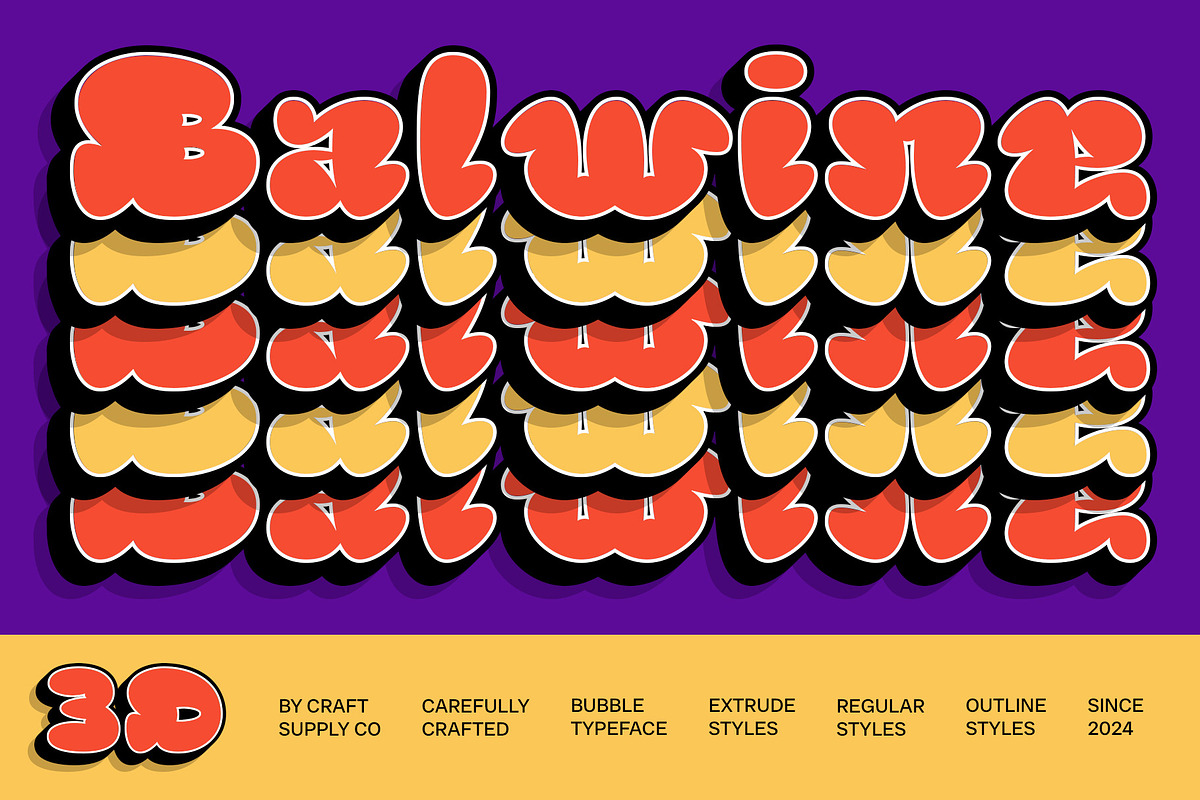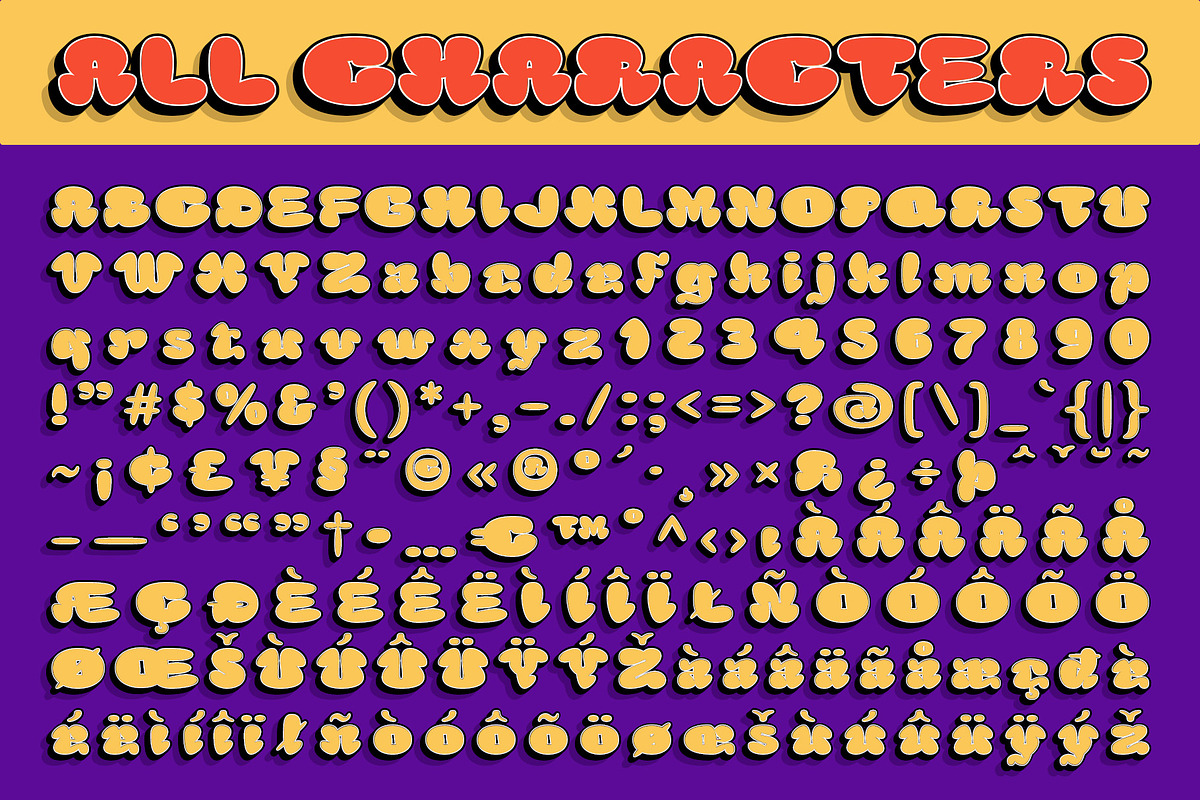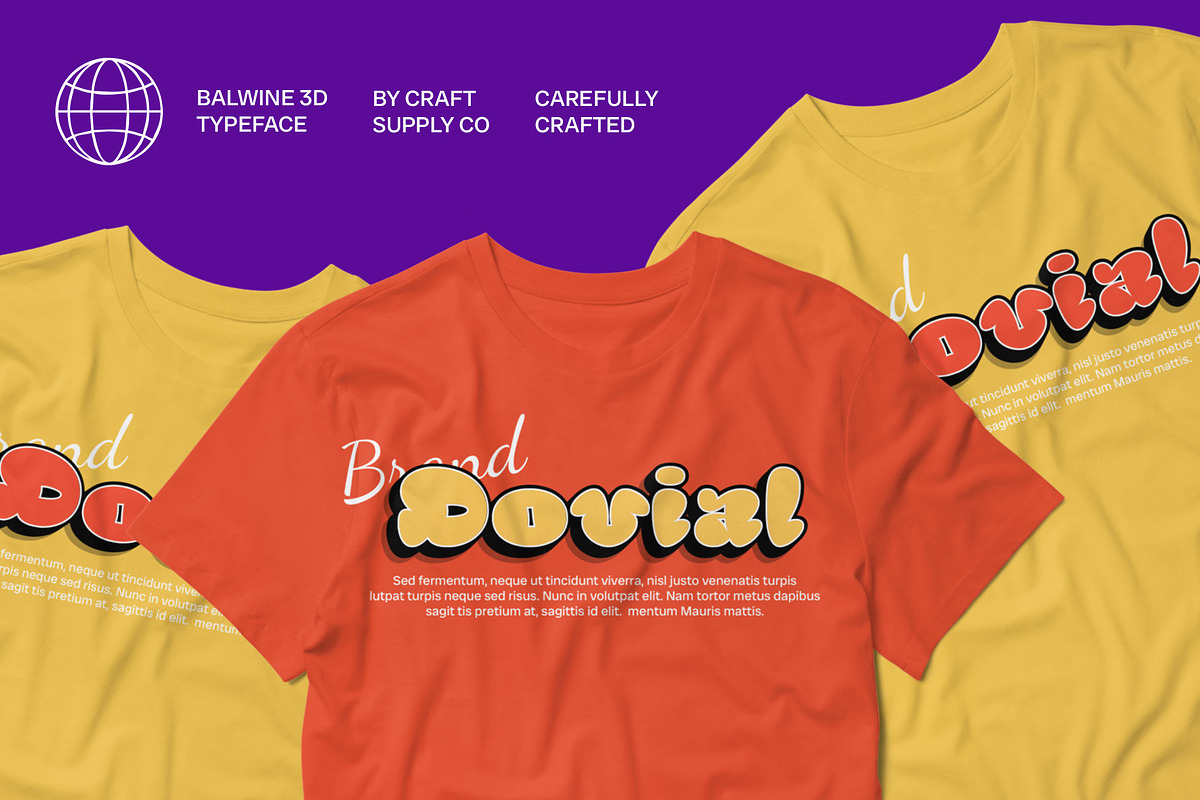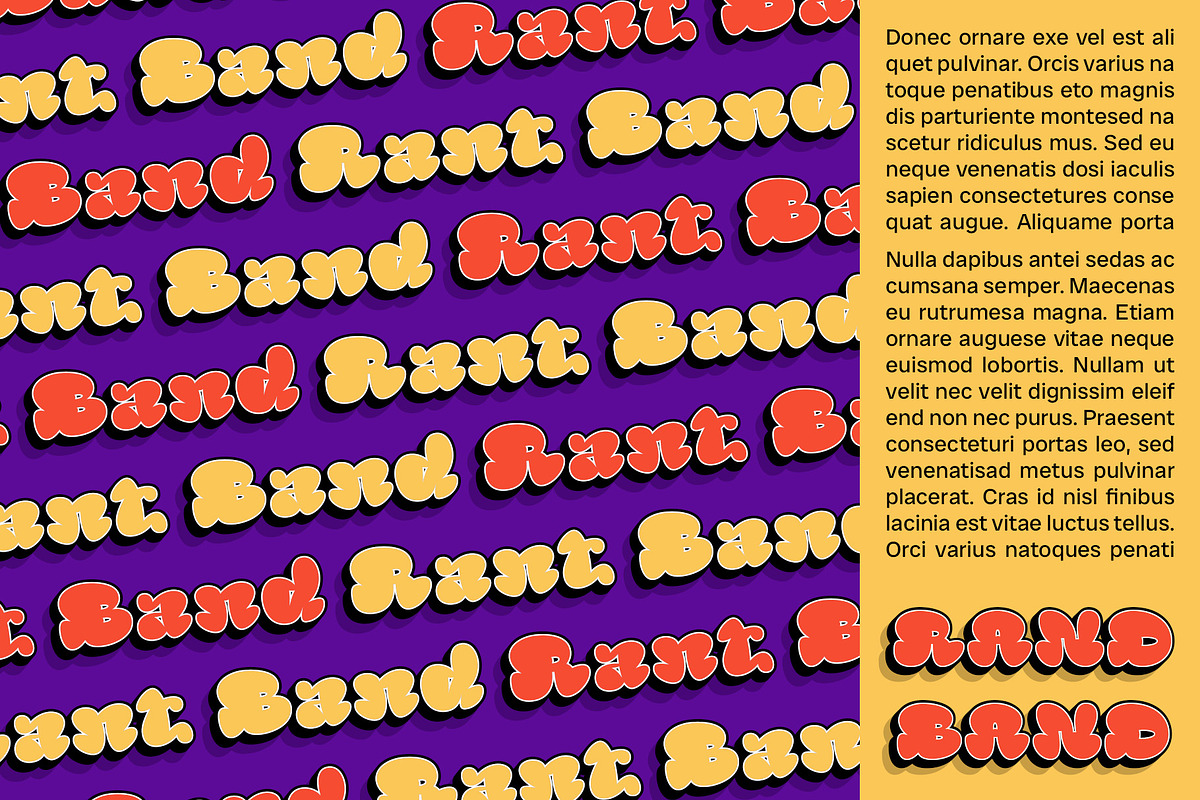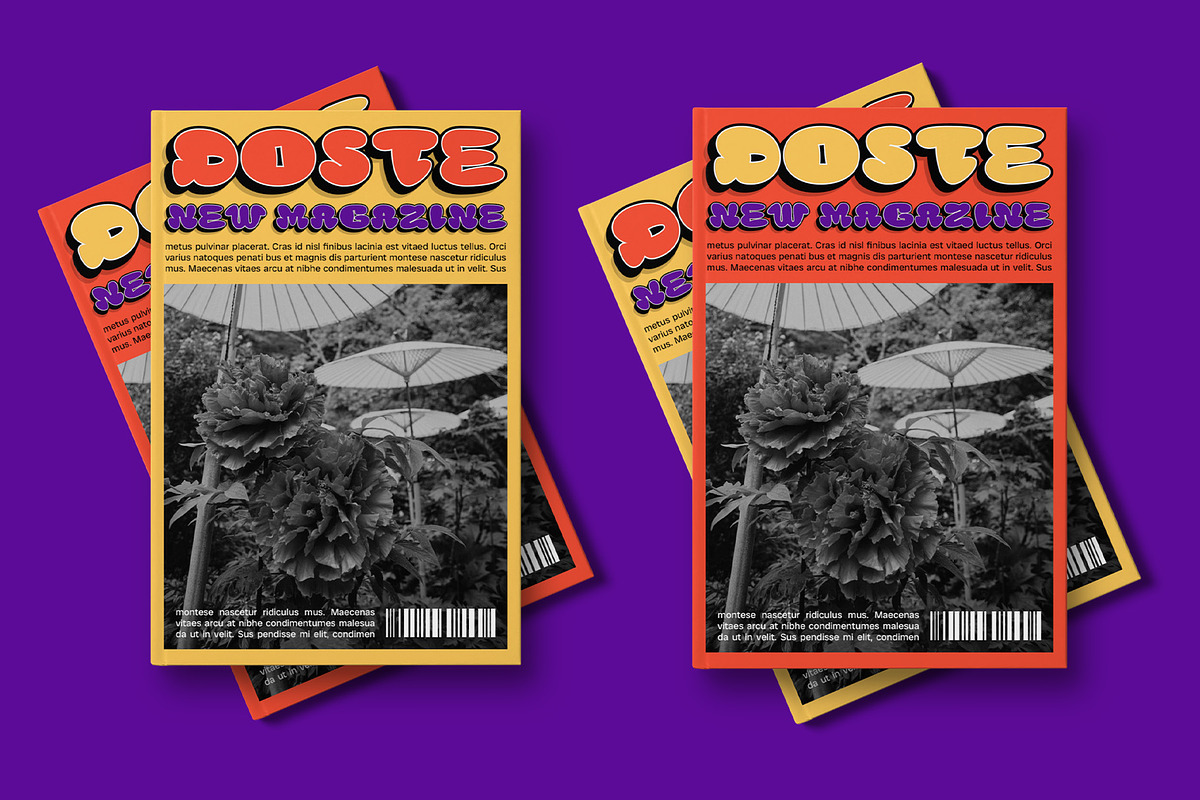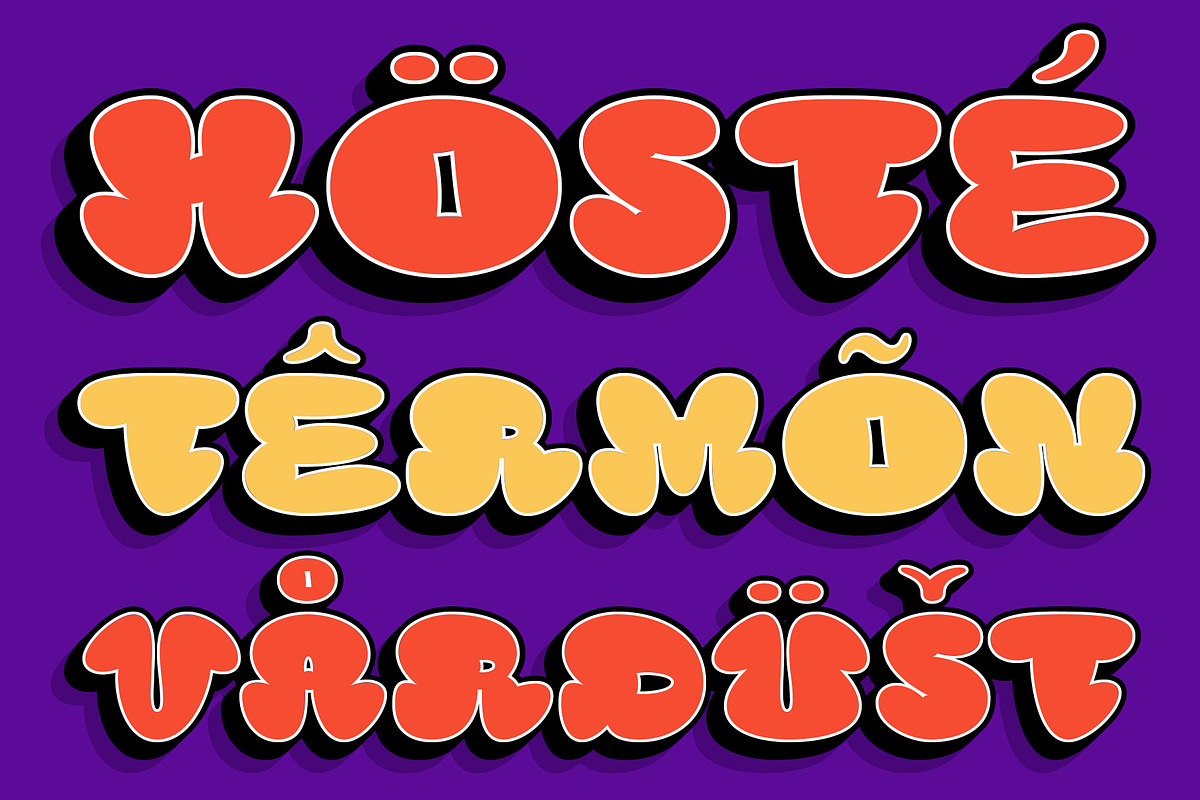
Balwine 3D
Balwine 3D – Playful Bubble Display Font: Fun, Energetic, and Full of Character
3D Bubble Display Font with a Lively Look Balwine 3D is a vibrant bubble display font crafted to infuse your designs with a fun and energetic vibe. Featuring round, soft bubble shapes, this font exudes a cute and playful appearance. The 3D effect adds depth and dimension, making the font appear dynamic and full of character, ideal for capturing attention and conveying a cheerful mood.
Round Shapes and Soft Edges The round, soft bubble shapes of Balwine 3D give it a distinctive, friendly look that’s perfect for playful and creative projects. The bubbly design enhances the font’s charm, while the 3D effect brings a sense of liveliness and visual interest. This combination creates a funky and engaging style, making the font stand out in a variety of applications.
Funky and Cheerful Style Balwine 3D’s funky and cheerful style makes it ideal for projects that aim to highlight a playful and imaginative atmosphere. Whether used in poster designs, promotional materials, or graphic elements, the font’s eye-catching appearance adds a charming touch to any design, making it perfect for events, product launches, and creative campaigns.
Ideal for Playful and Creative Projects Designed to bring a burst of fun and creativity, Balwine 3D excels in applications where a lighthearted and engaging visual is desired.